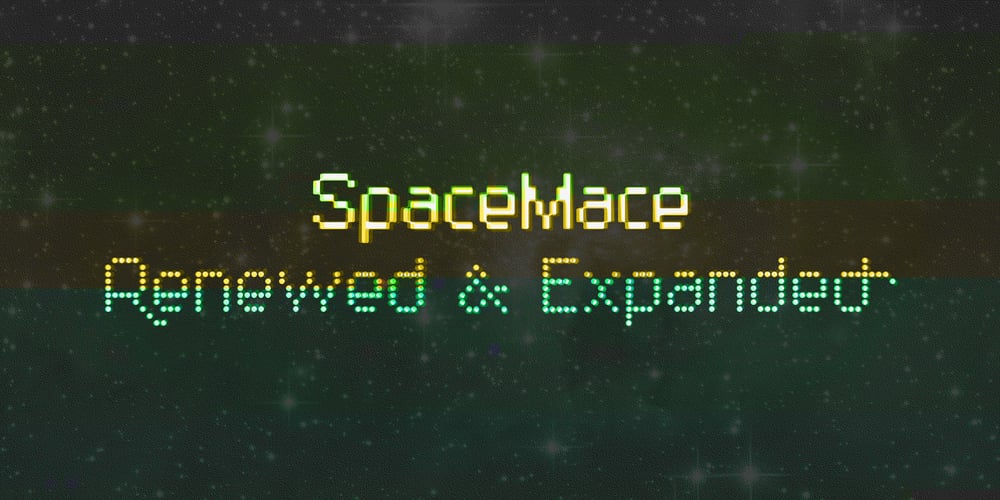
SpaceMace Font Family was designed by published by Scannerlicker. SpaceMace contains 3 styles and family package options. SpaceMace is a pixel-font designed for print work… or not! It features 950 glyphs, from Basic Latin to Greek and Cyrillic, with ligatures, swashes and much, much more!